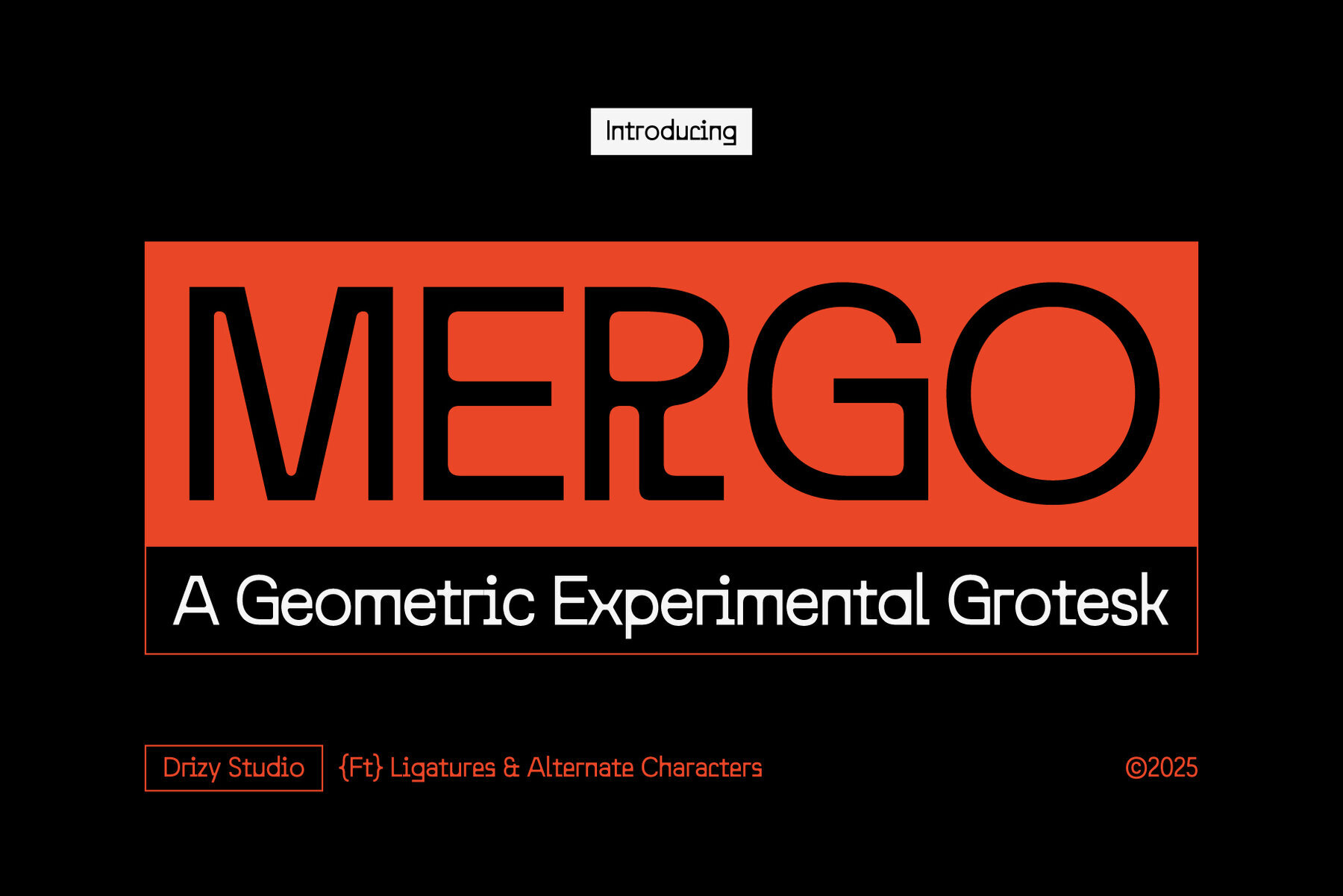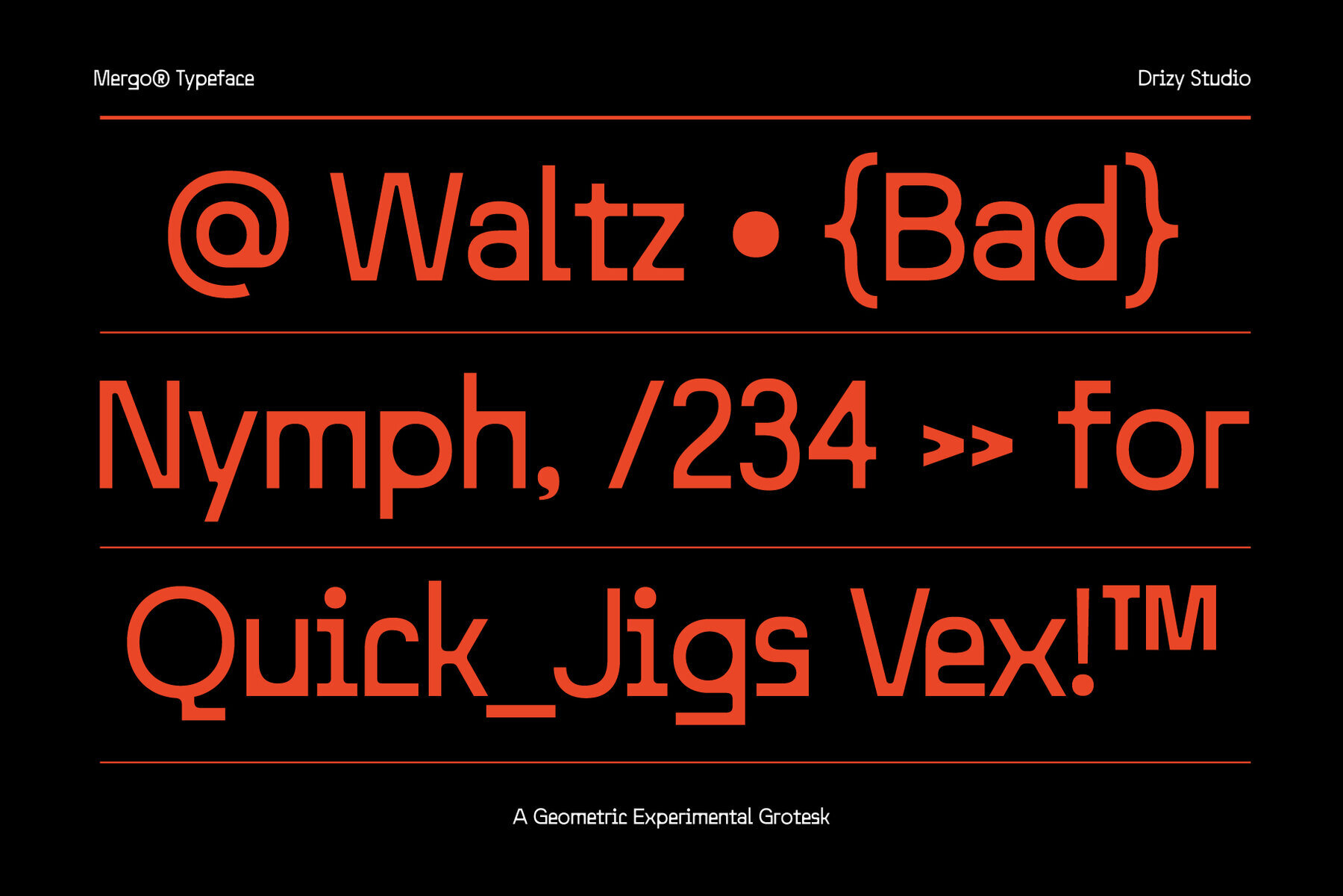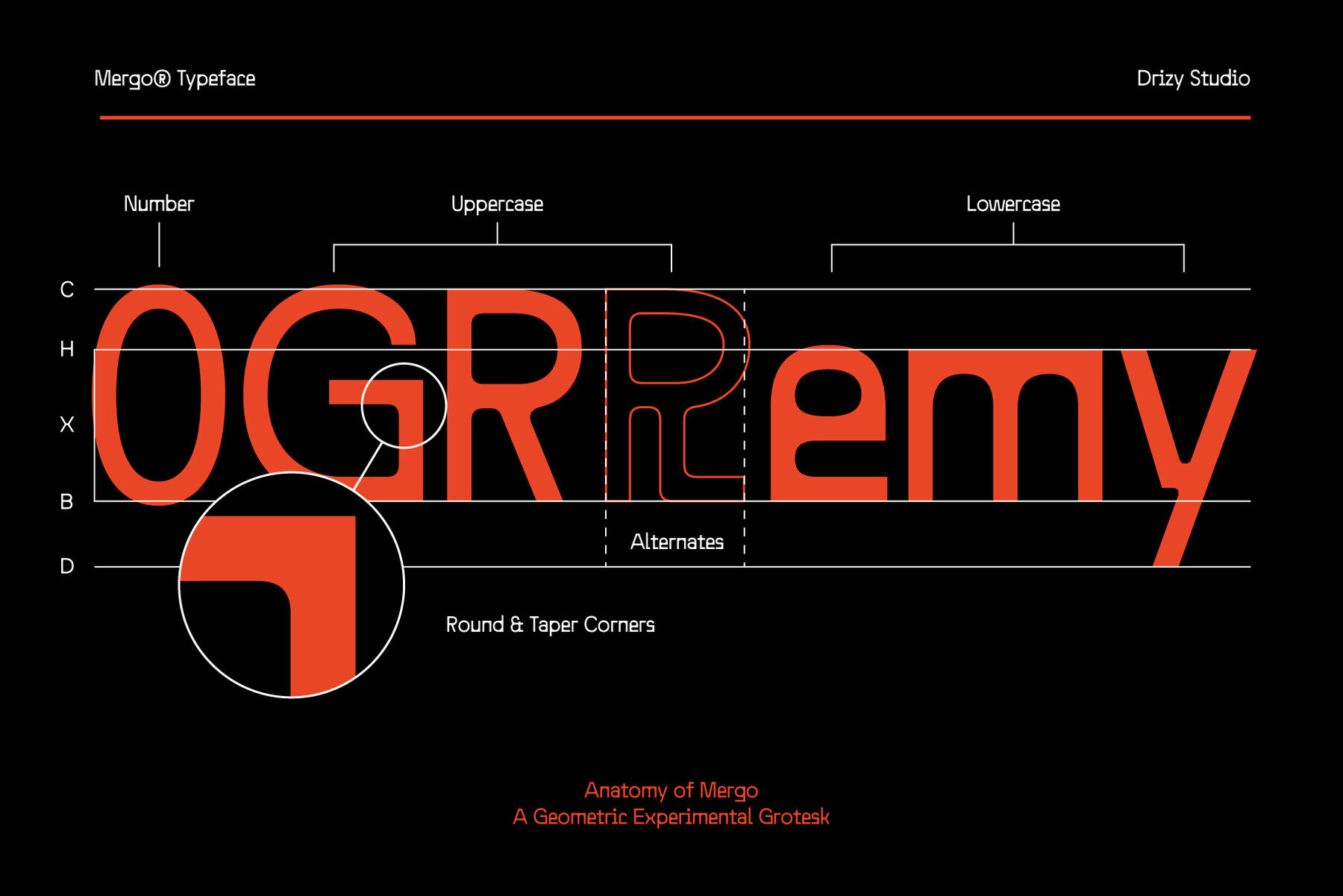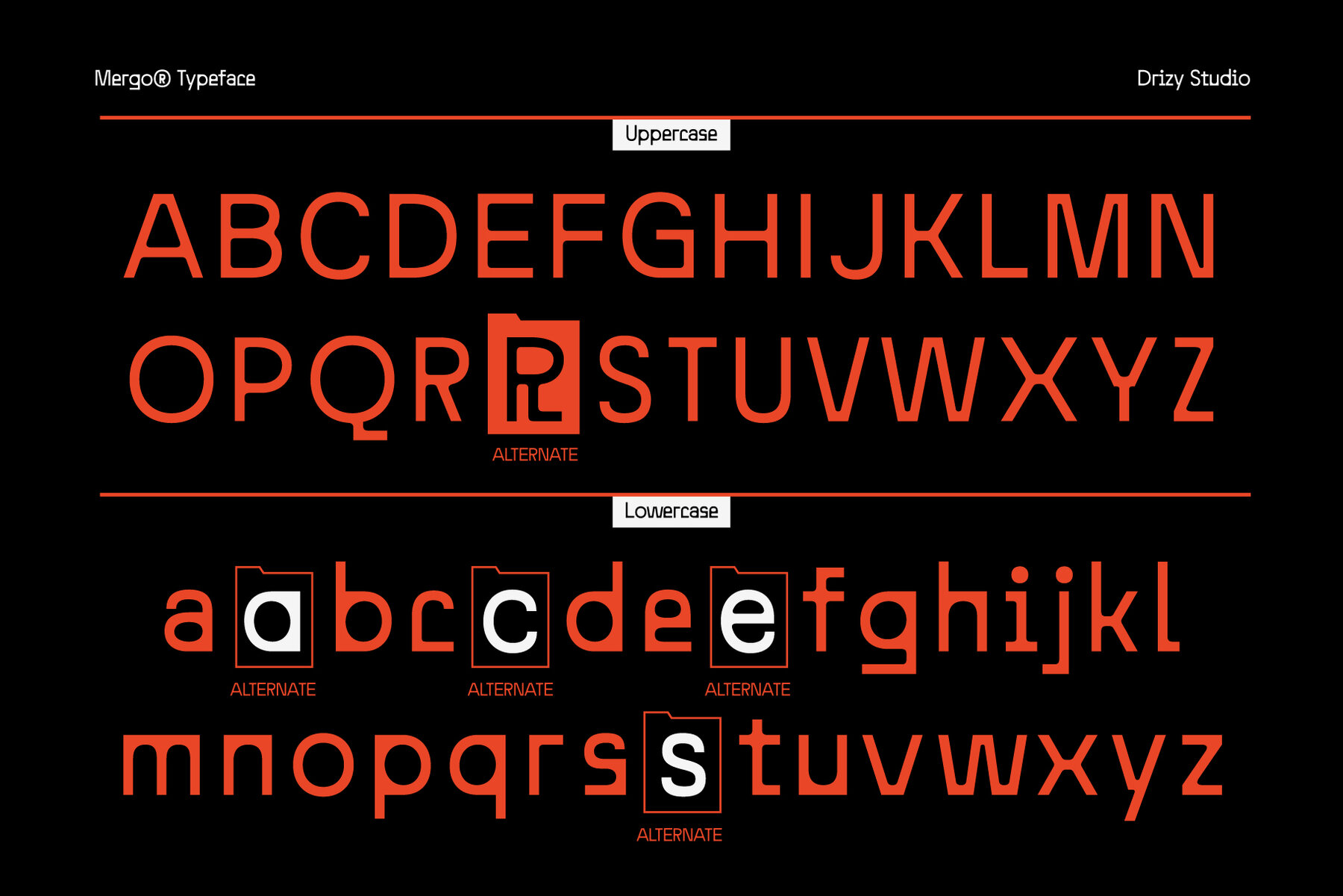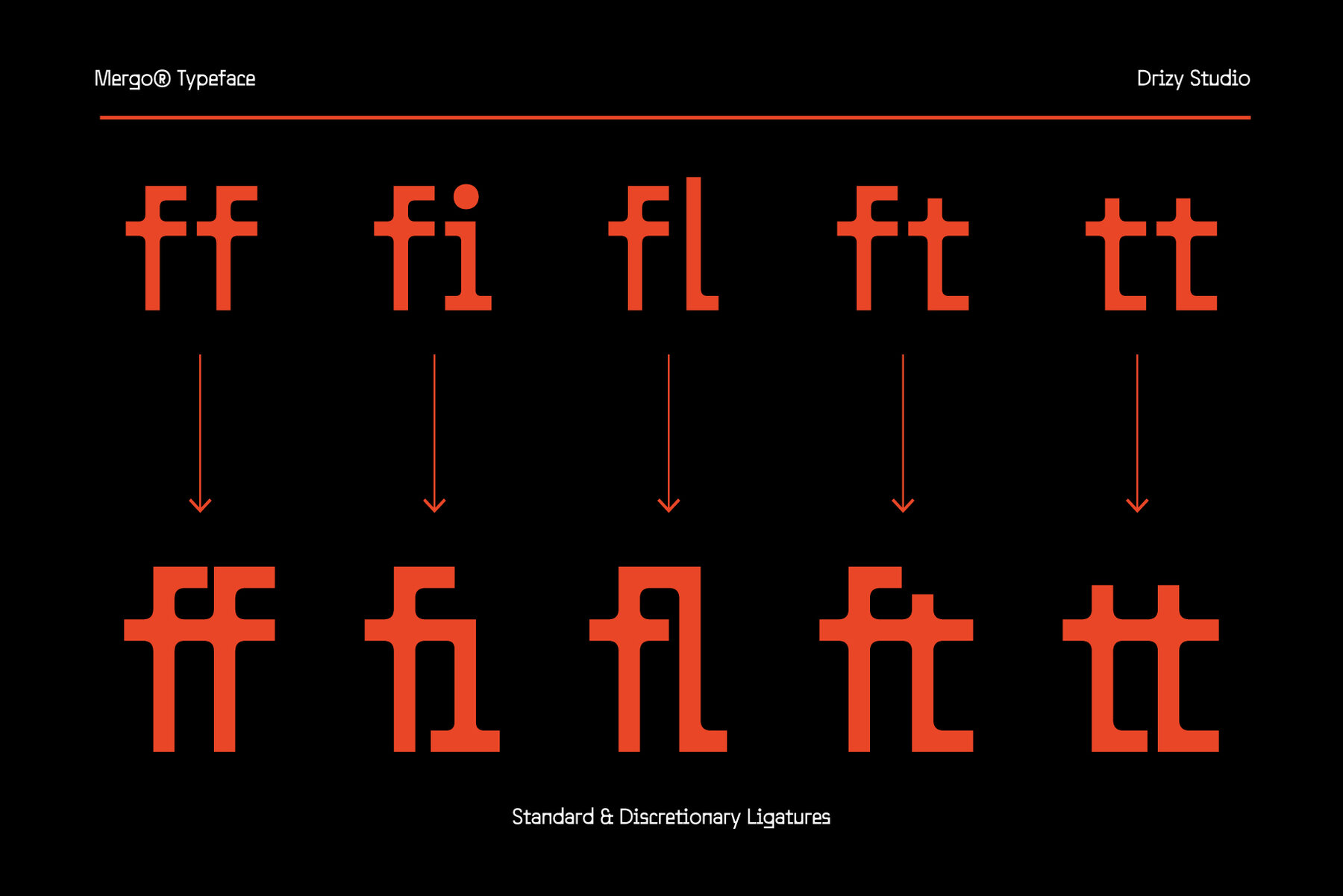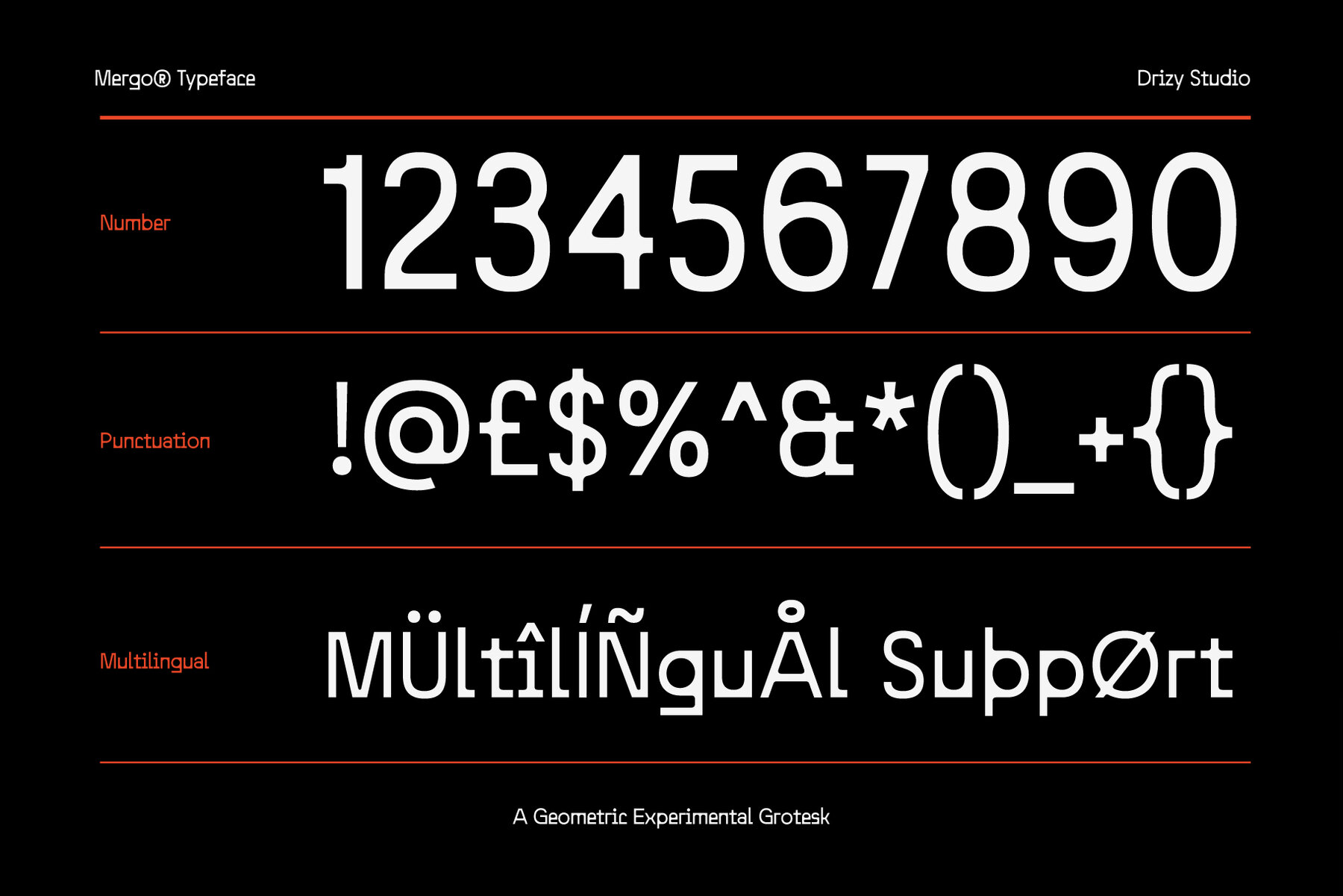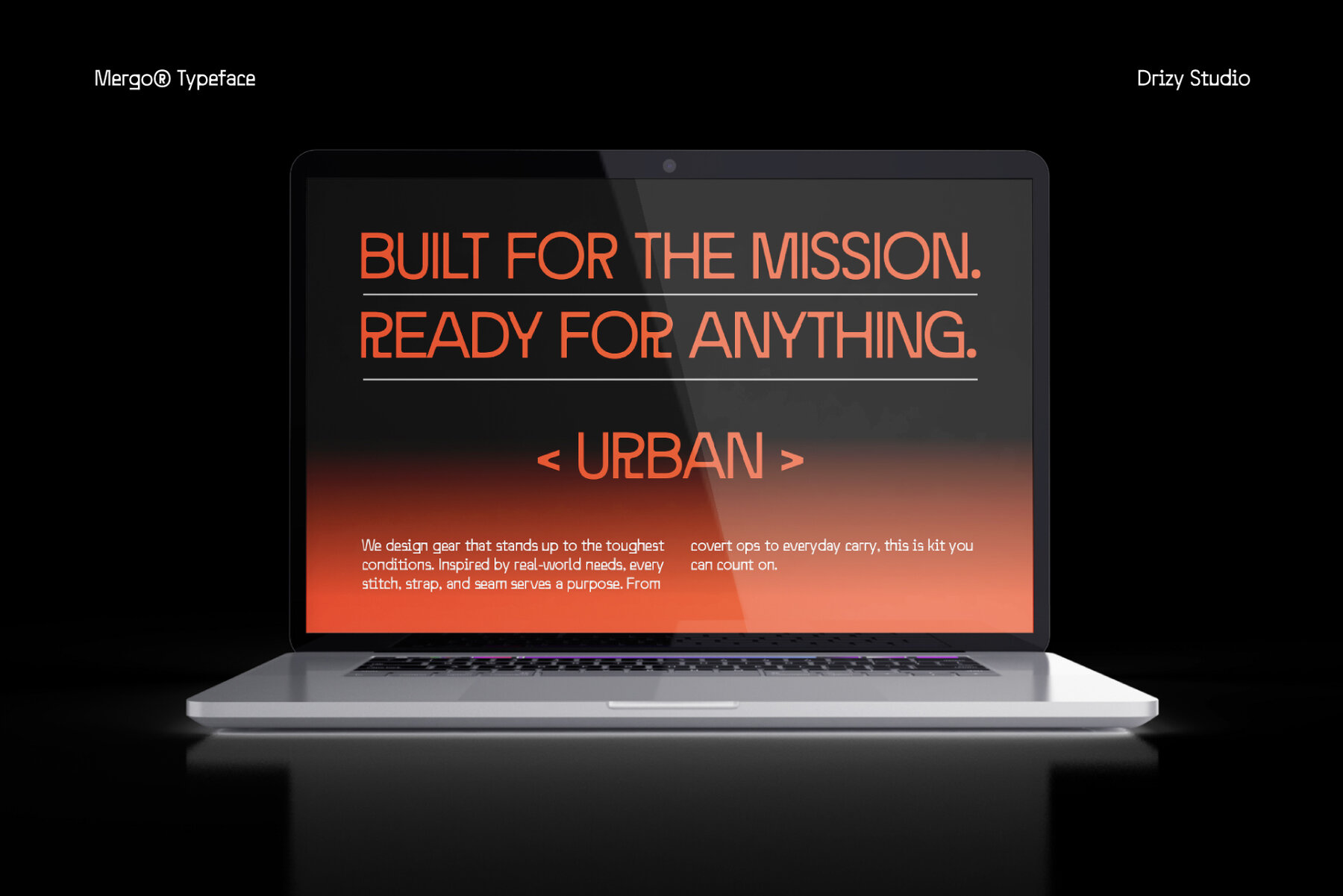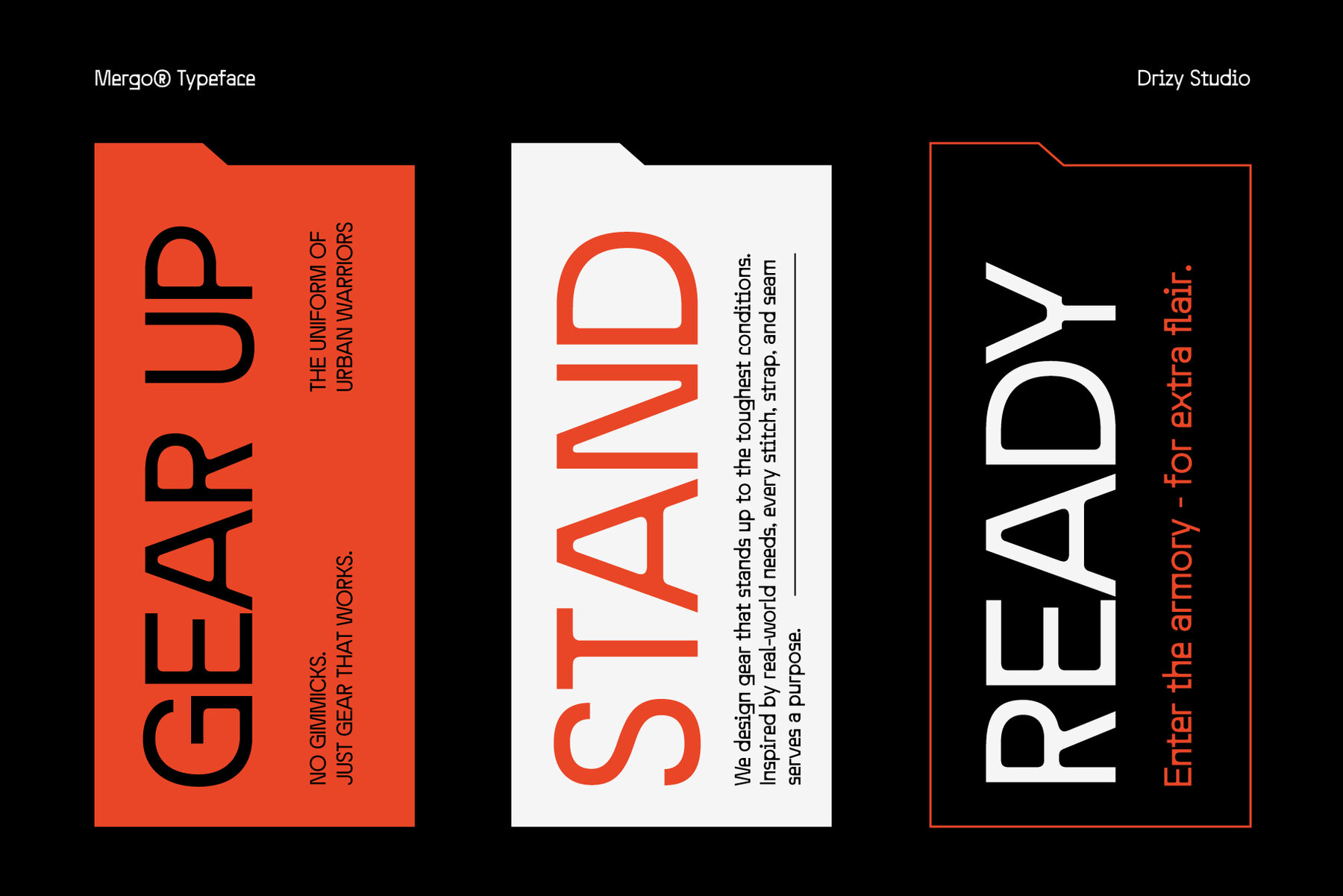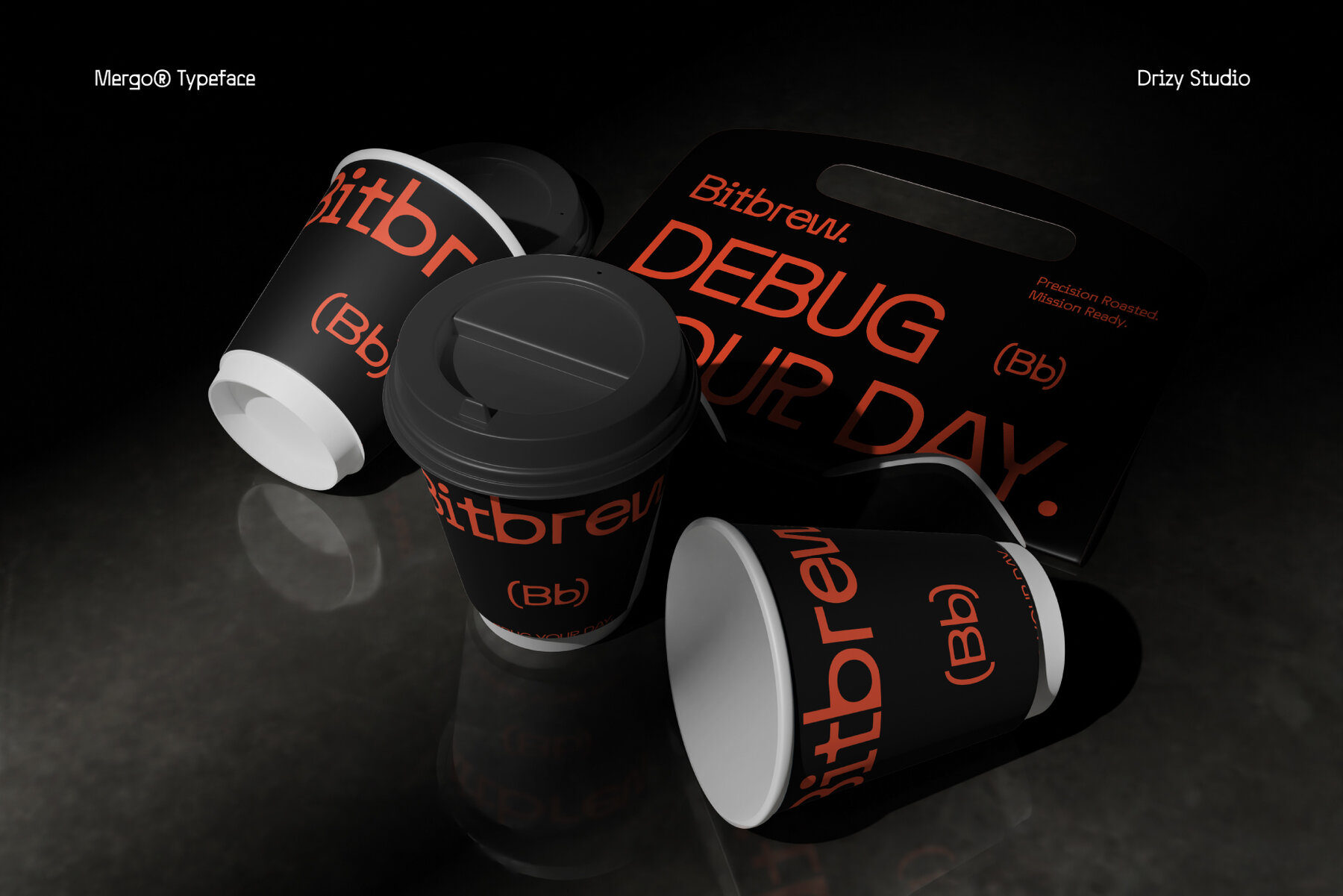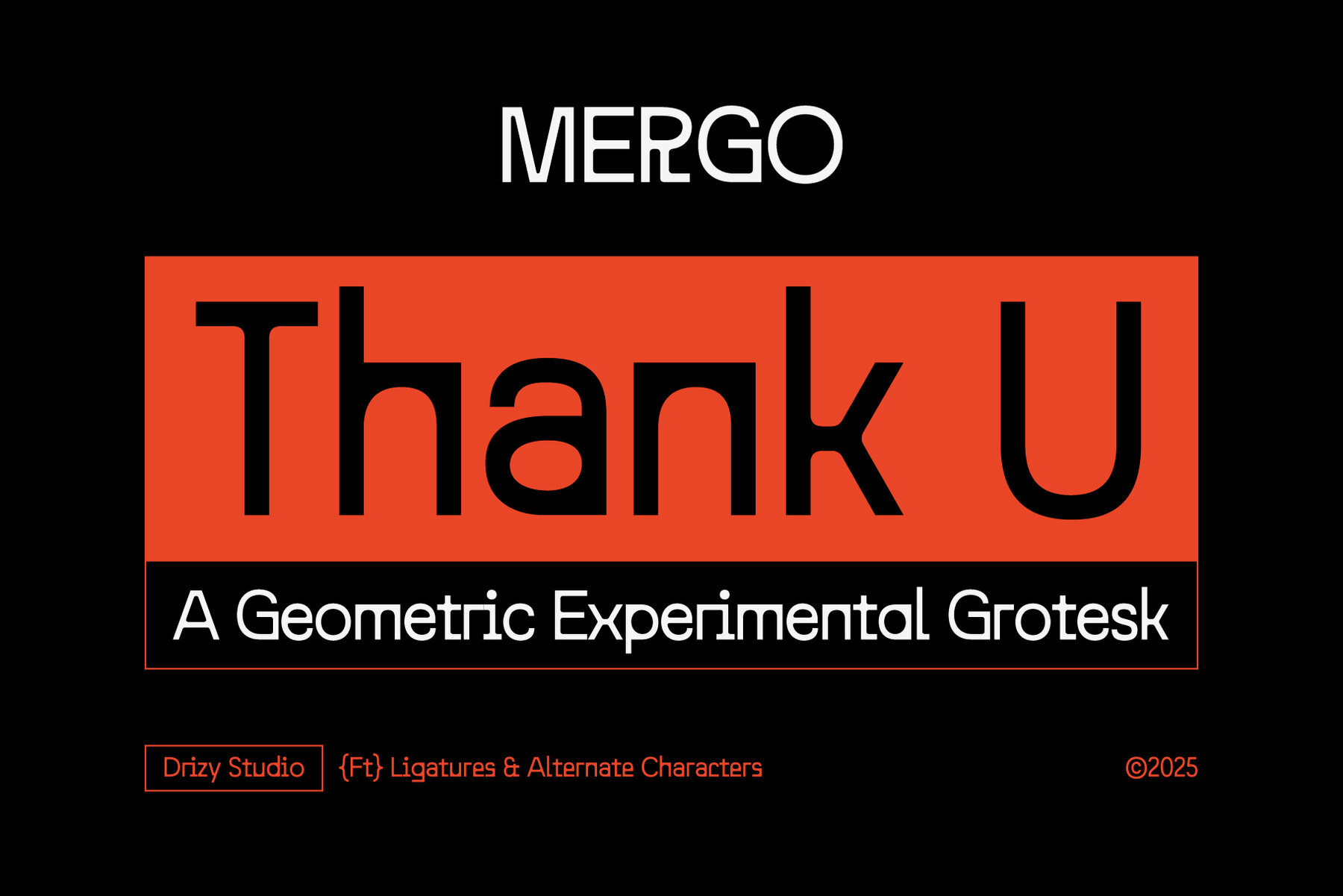
Mergo Font
Mergo Regular
The Mergo typeface is a bold exploration at the crossroads of structure and spontaneity. This geometric grotesk design challenges convention by merging the sharpness of square forms with the gentle rhythm of circular shapes, creating a visual tension that feels both futuristic and uniquely human. Each letterform is crafted with precision yet playfully distorts symmetry, offering an experiment in controlled chaos where strict geometry meets organic deviation. Ideal for those who embrace the unconventional.Mergo: Geometric Grotesk with Experimental Flair